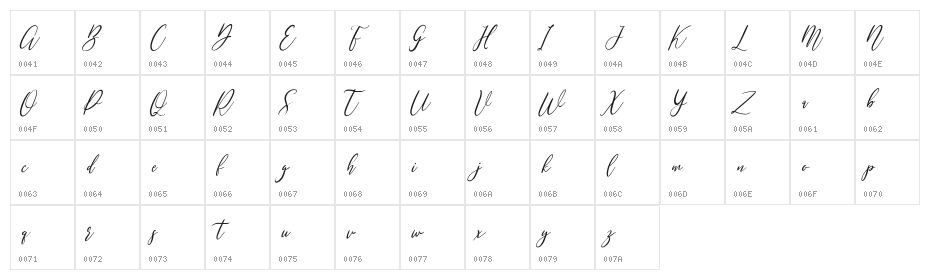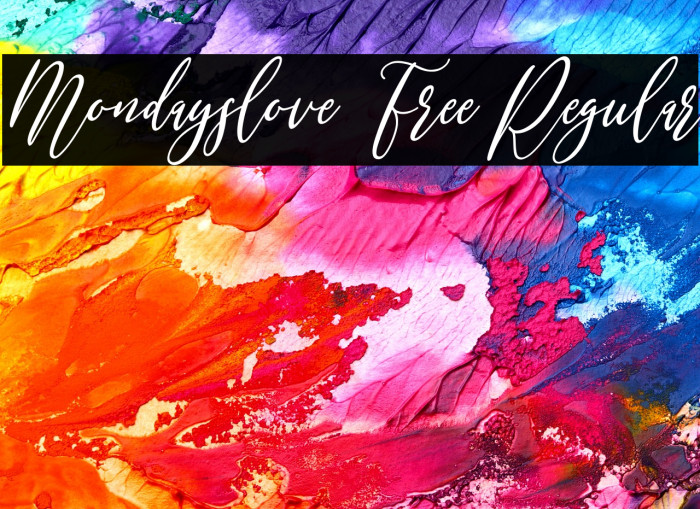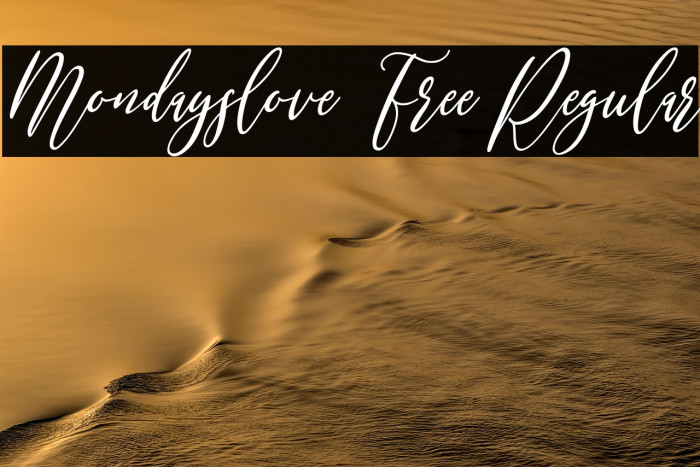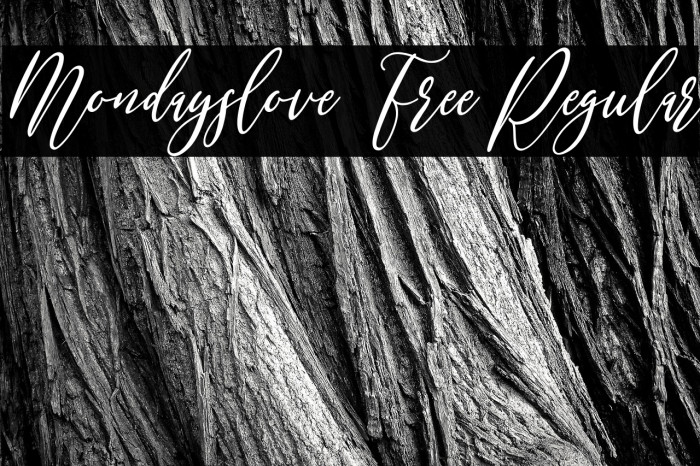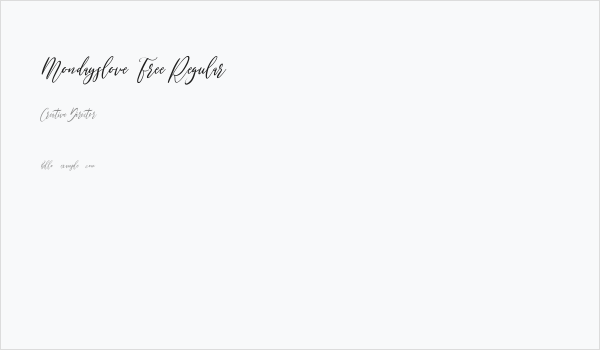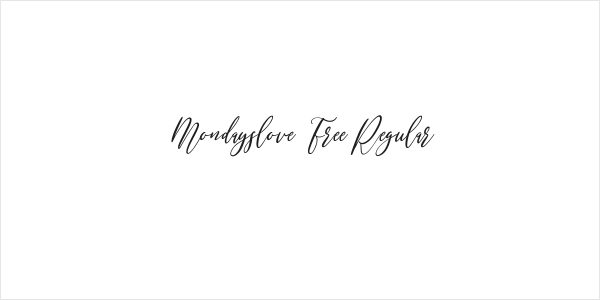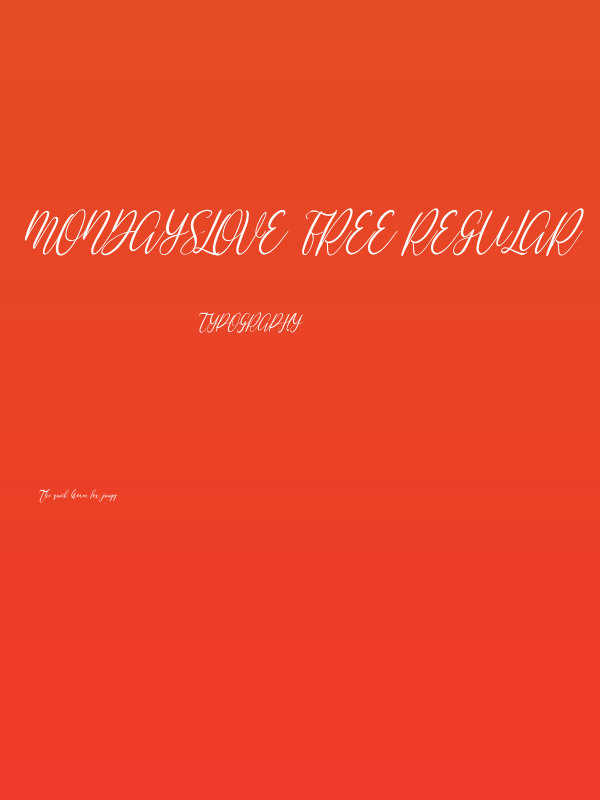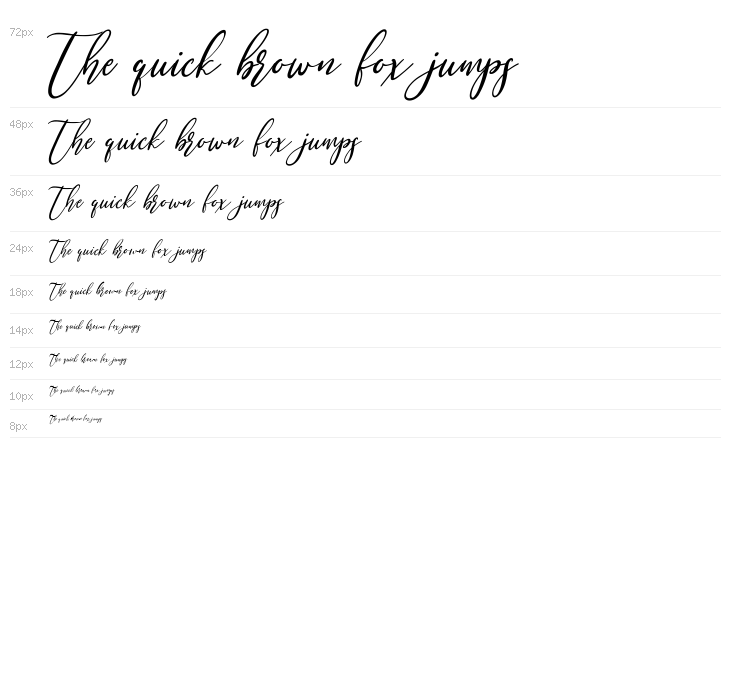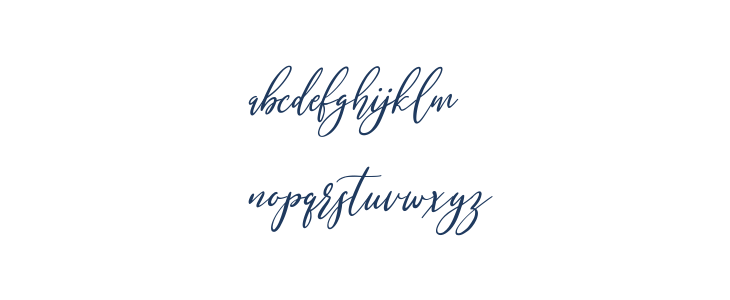
Mondayslove Free Regular Font
Mondayslove Free Regular Description
This font features a flowing, cursive style with elegant loops and swashes, giving it a handwritten appearance. The characters are connected, creating a smooth and continuous flow that mimics natural handwriting. The uppercase letters are bold and prominent, while the lowercase letters maintain a delicate and graceful form. This font exudes a sense of sophistication and charm, making it ideal for projects that require a personal touch. The overall design is both stylish and readable, with a consistent stroke width that ensures clarity across different sizes.
| Overall Style | Elegant, Handwritten |
| Use Case | Logos, Invitations, Personal stationery |
| Proposed Projects | Ideal for wedding invitations, greeting cards, branding, and personal stationery. |